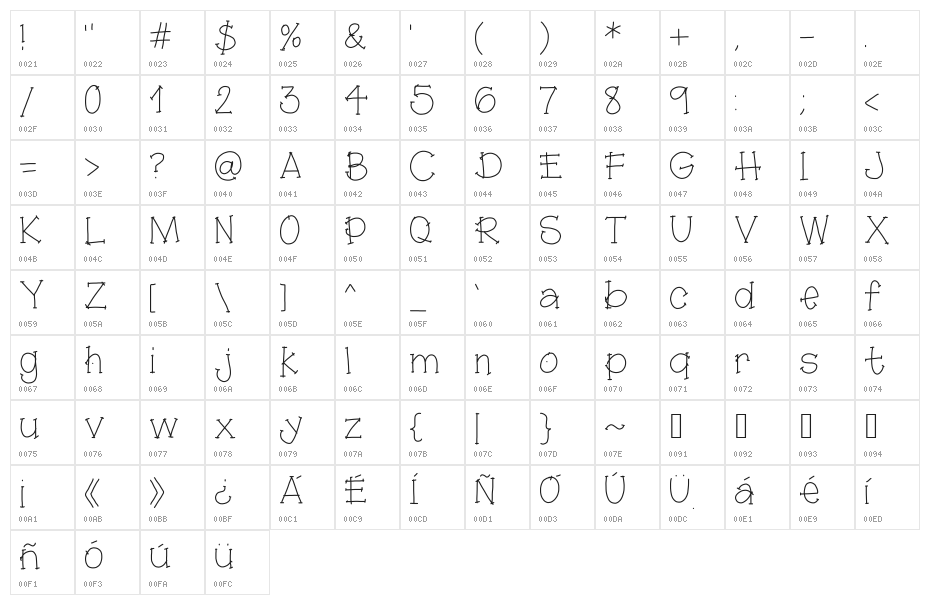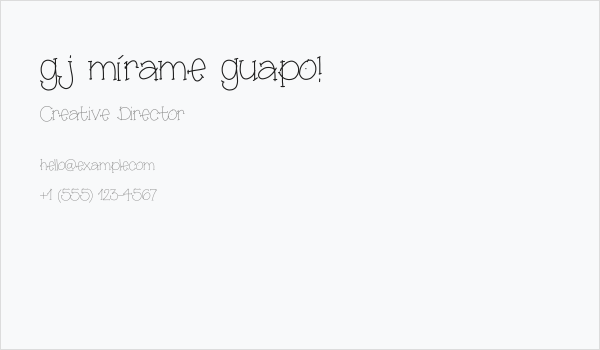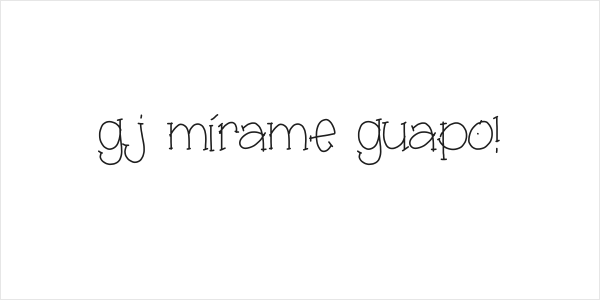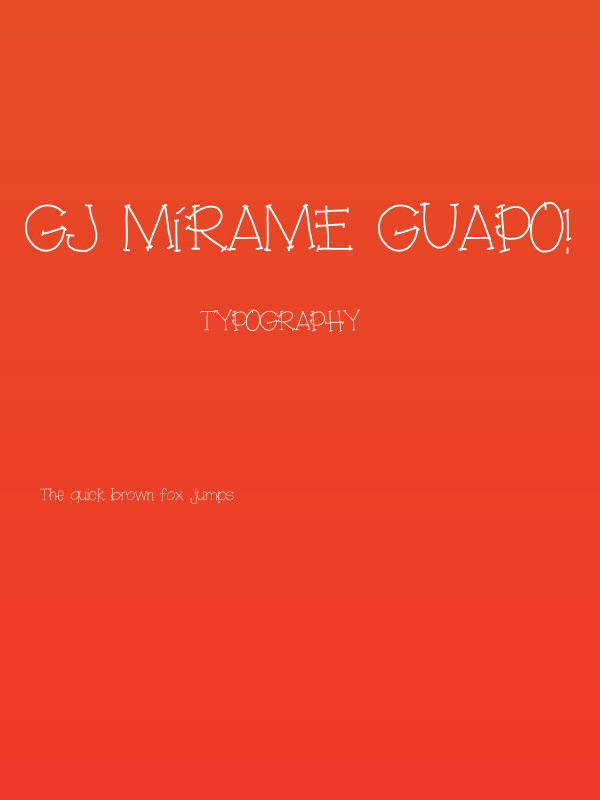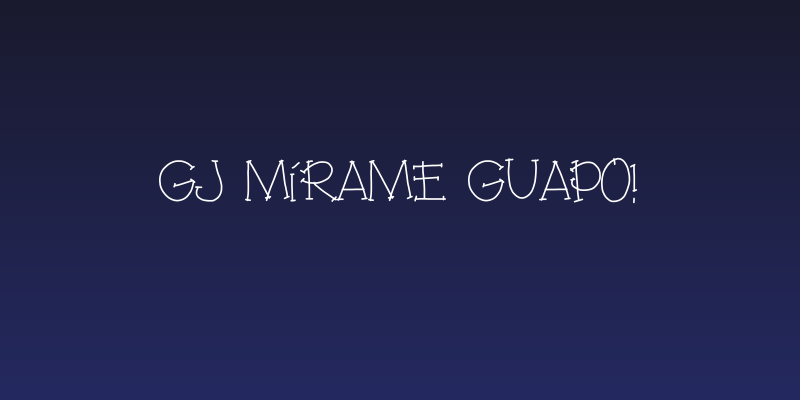
gj mírame guapo! Font
gj mírame guapo! Description
This font features a playful and whimsical design, characterized by its irregular, hand-drawn appearance. The letters are slightly tilted and vary in size, giving a casual and informal feel. The strokes are uneven, with a mix of thick and thin lines, adding to the font's quirky charm. The uppercase and lowercase letters maintain a consistent style, while the numbers and special characters complement the overall aesthetic. This font is ideal for projects that require a fun and lighthearted touch, such as children's books, greeting cards, or playful branding.
| Proposed Projects | Ideal for children's books, greeting cards, playful branding, and casual invitations. |